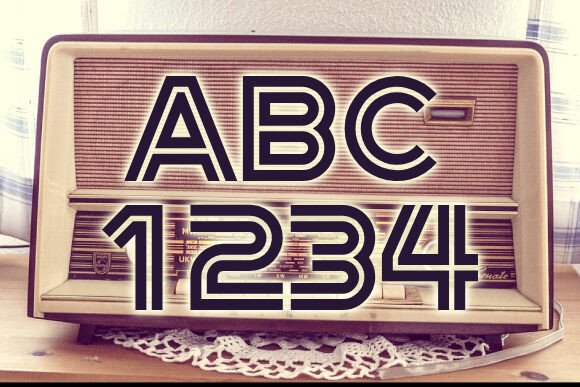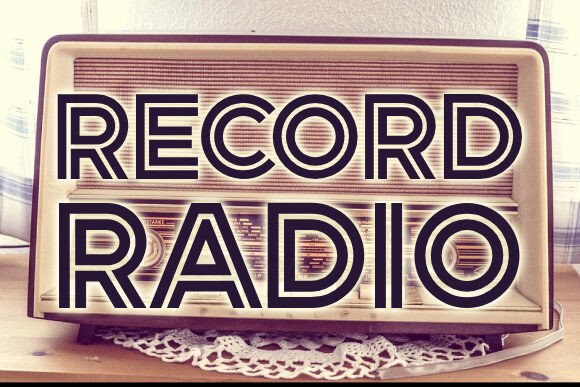
Introducing Fake Font: The Ultimate Retro Typeface for Designers and Crafters
Are you tired of using the same old fonts in your design projects? Do you want to add a touch of nostalgia and vintage flair to your work? Look no further than Fake Font, a bold, vintage-inspired typeface that’s perfect for posters, album covers, branding, and nostalgic projects.
What is Fake Font?
Fake Font is a clean-lined, retro radio-inspired typeface that blends sharp geometry with old-school flair for high-impact visuals. Its unique design makes it stand out from other fonts, giving your work a distinctive look that’s sure to grab attention.
Key Features of Fake Font
- Bold and eye-catching: Fake Font is a bold typeface that’s designed to make a statement. Its thick lines and sharp geometry make it perfect for headlines, titles, and other applications where you want to grab attention.
- Vintage-inspired: Fake Font has a retro vibe that’s reminiscent of old-school radio and vintage advertising. Its unique design makes it perfect for nostalgic projects and designs that require a touch of classic flair.
- Clean-lined: Despite its bold design, Fake Font has clean lines that make it easy to read and versatile enough to use in a variety of applications.
- High-impact visuals: Fake Font is designed to make a statement. Its unique combination of sharp geometry and old-school flair makes it perfect for posters, album covers, branding, and other applications where you want to create high-impact visuals.
Uses for Fake Font
Fake Font is a versatile typeface that can be used in a variety of applications, including:
- Posters: Fake Font is perfect for creating eye-catching posters for events, promotions, and other applications.
- Album covers: Fake Font’s vintage-inspired design makes it a great choice for album covers and music-related projects.
- Branding: Fake Font can be used to create bold, eye-catching logos and branding materials that make a statement.
- Nostalgic projects: Fake Font’s retro vibe makes it perfect for nostalgic projects, such as retro-themed advertising, packaging, and other designs.
Why Choose Fake Font?
There are many fonts available that claim to be vintage-inspired or retro-style, but Fake Font stands out from the crowd. Here are just a few reasons why:
- Unique design: Fake Font has a unique design that’s unlike other fonts on the market. Its combination of sharp geometry and old-school flair makes it a standout.
- High-quality: Fake Font is a high-quality typeface that’s designed to look great in any application.
- Versatile: Fake Font is versatile enough to use in a variety of applications, from posters and album covers to branding and nostalgic projects.
Fake Font is a bold, vintage-inspired typeface that’s perfect for designers and crafters who want to add a touch of nostalgia and classic flair to their work. Its unique design, high-quality construction, and versatility make it a great choice for a wide range of applications, from posters and album covers to branding and nostalgic projects. So why settle for a boring, generic font when you can use Fake Font to create high-impact visuals that grab attention?